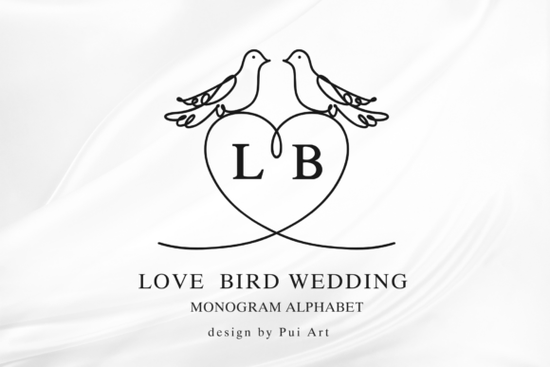
If you're looking for a wedding font that feels both timeless and full of heart, the Love Bird Wedding Monogram Font stands out as a thoughtful choice for designers and crafters alike. It’s not just a typeface it’s a way to bring romance into every detail of a couple’s special day. With its delicate lovebird illustrations and elegant serif-inspired letters nestled inside a heart-shaped frame, this font adds warmth and meaning to invitations, stationery, and more.
What Makes This Wedding Font Special?
The Love Bird Wedding Monogram Font blends classic elegance with soft, romantic charm. Each letter from A to Z is carefully crafted to fit within a flowing heart-line design, creating a seamless look that feels cohesive and intentional. The subtle inclusion of two tiny lovebirds perched near the baseline gives it a personal touch like a quiet promise between two people.
It works beautifully for:
- Wedding invitations and save-the-date cards
- Personalized bridal shower or engagement party materials
- Luxury wax seals and custom logos
- Cricut or Silhouette projects for DIY crafts
- Print-on-demand items like mugs, T-shirts, and tote bags
You can use it for anything from a simple “Mr. & Mrs.” monogram on a welcome sign to a full wedding suite with matching envelopes and thank-you notes. The clean lines make it easy to pair with other fonts, while still standing out as a centerpiece.
How to Use the Love Bird Font in Real Projects
One of the best things about this font is how versatile it is. Whether you’re designing for a client or crafting something personal, it adapts well across formats. For example:
- Try using it in a minimalist layout with soft pastel colors for a modern rustic wedding theme.
- Pair it with a bold sans-serif for contrast when making digital announcements.
- Use it in embroidery designs or vinyl cutouts for personalized gifts like wedding favors or photo frames.
Because it includes the full alphabet, you’re not limited to just initials. You can spell out names, create date displays, or even design custom signage for events like rehearsal dinners or bridal showers.
Why Designers Choose This Font Over Others
While there are many decorative fonts out there, few manage to balance romance and refinement like this one. It avoids being overly ornate, which helps it stay professional yet heartfelt. Compared to bolder options like the Dragon Font or dramatic styles such as Royal Blade Font, this one feels more intimate and suitable for couples who value subtlety and grace.
For those who prefer classic wedding aesthetics, the Classic Wedding Monogram Font offers a similar feel but without the illustrated elements. If you want something unique with a touch of whimsy, the Albatross Font brings a different kind of elegance but the Love Bird Wedding Monogram Font remains a top pick for couples who love nature-inspired details and meaningful symbolism.
Final Thoughts for Crafters and Small Businesses
If you’re a small business owner, print-on-demand seller, or creative hobbyist, this font opens up opportunities to offer customized wedding products that feel handcrafted and personal. It’s especially useful if you’re targeting couples planning intimate ceremonies or vintage-style weddings.